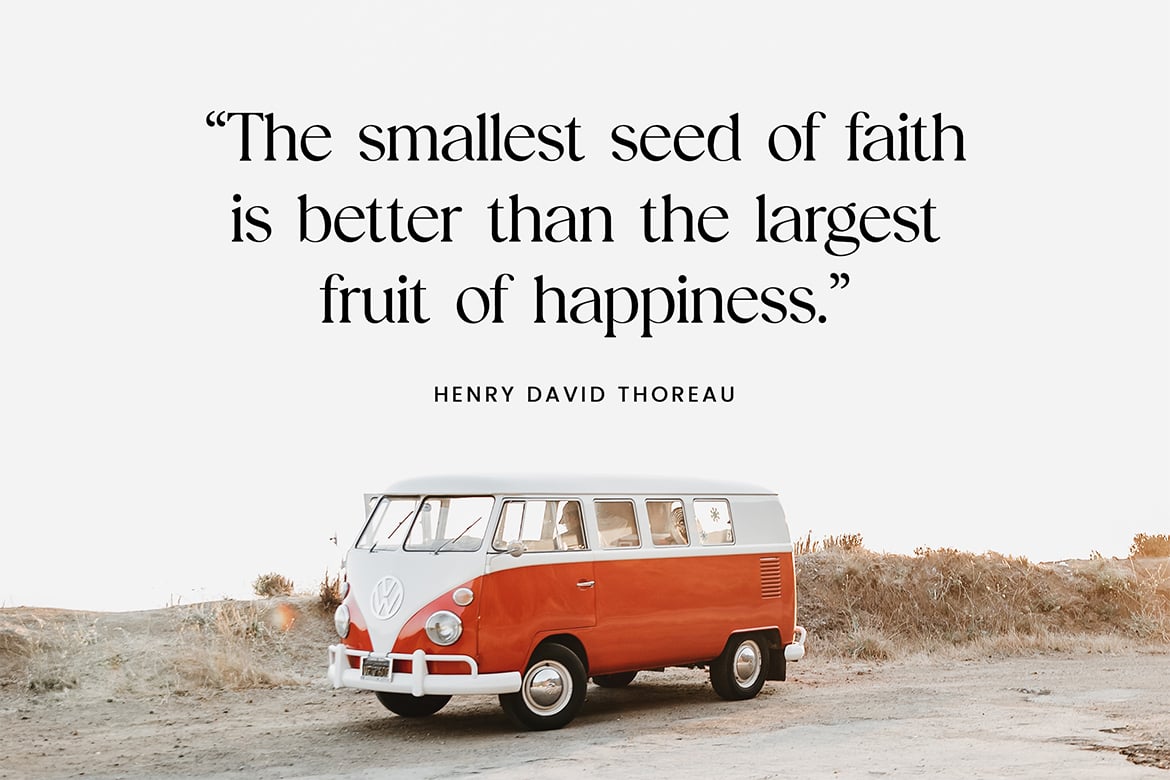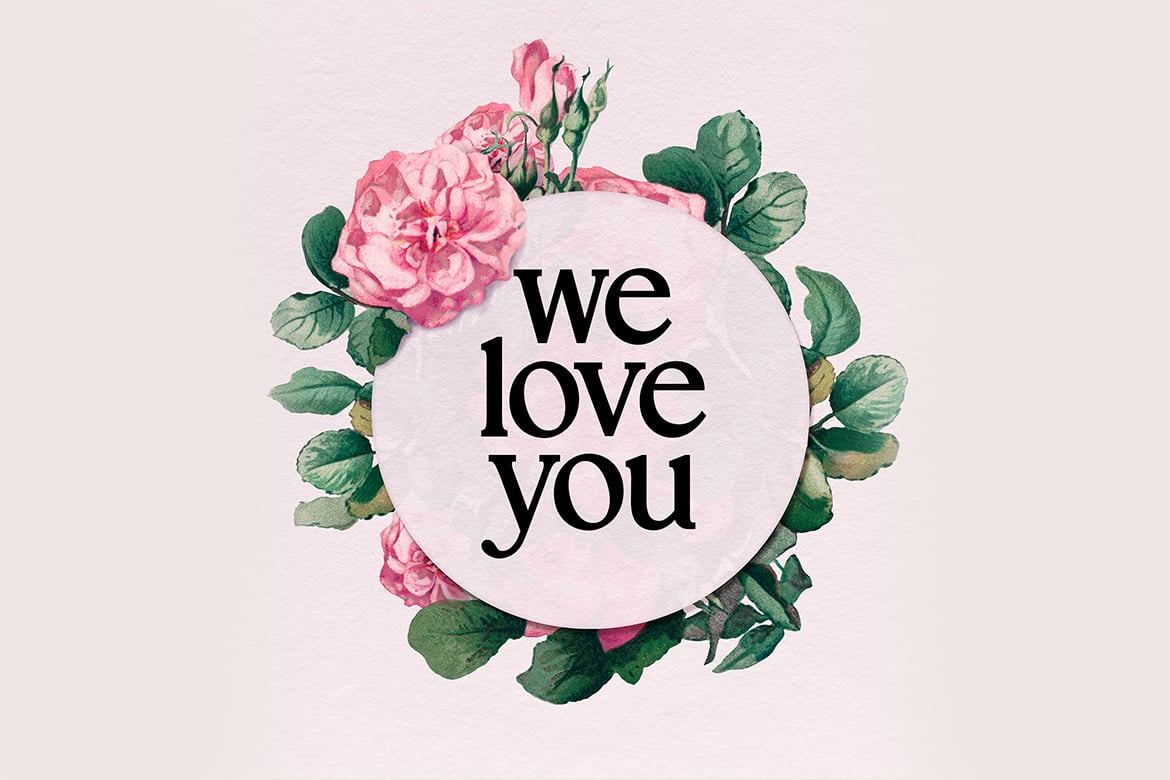
Editorial Today Serif Family Font
Editorial Today is a practical serif rather than a showy one. It has moderate contrast, open letter shapes and a slightly soft finish on the serifs. Set as a Thoreau quote over a camper van photo in the specimen, it reads easily at a modest size, and in heavy weights it turns warm and chunky in the we love you floral badge.
UICreative released the family in 2023 with nine styles: Thin, Regular, Semi Bold, Bold and Extra Bold, plus matching italics for most of them. The free file on this page is a single OTF, so you get one weight to try.
Best uses for Editorial Today
• Magazine articles and headlines
• Quote graphics and book covers
• Wedding and event stationery
• Blog titles and newsletters
• Brand names for lifestyle shops
Editorial Today pairs easily. Inter gives a clean contrast for captions. Montserrat in small caps suits names and credits, as in the specimen. If you want a script accent, try Pinyon Script.
What free font is similar to Editorial Today?
Source Serif 4 and Lora are open-licence serif families with a similar readable, editorial feel.
How many weights does Editorial Today have?